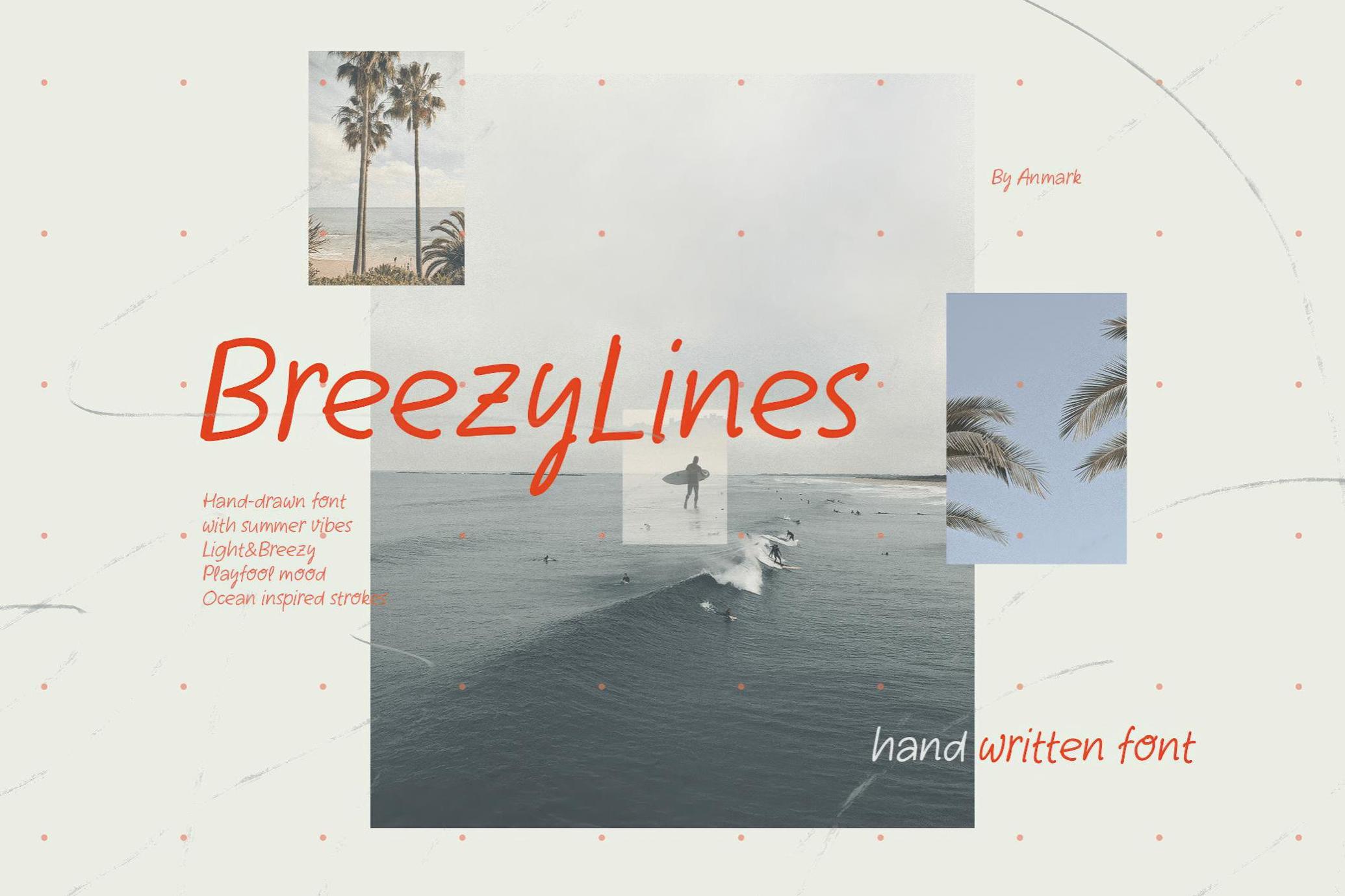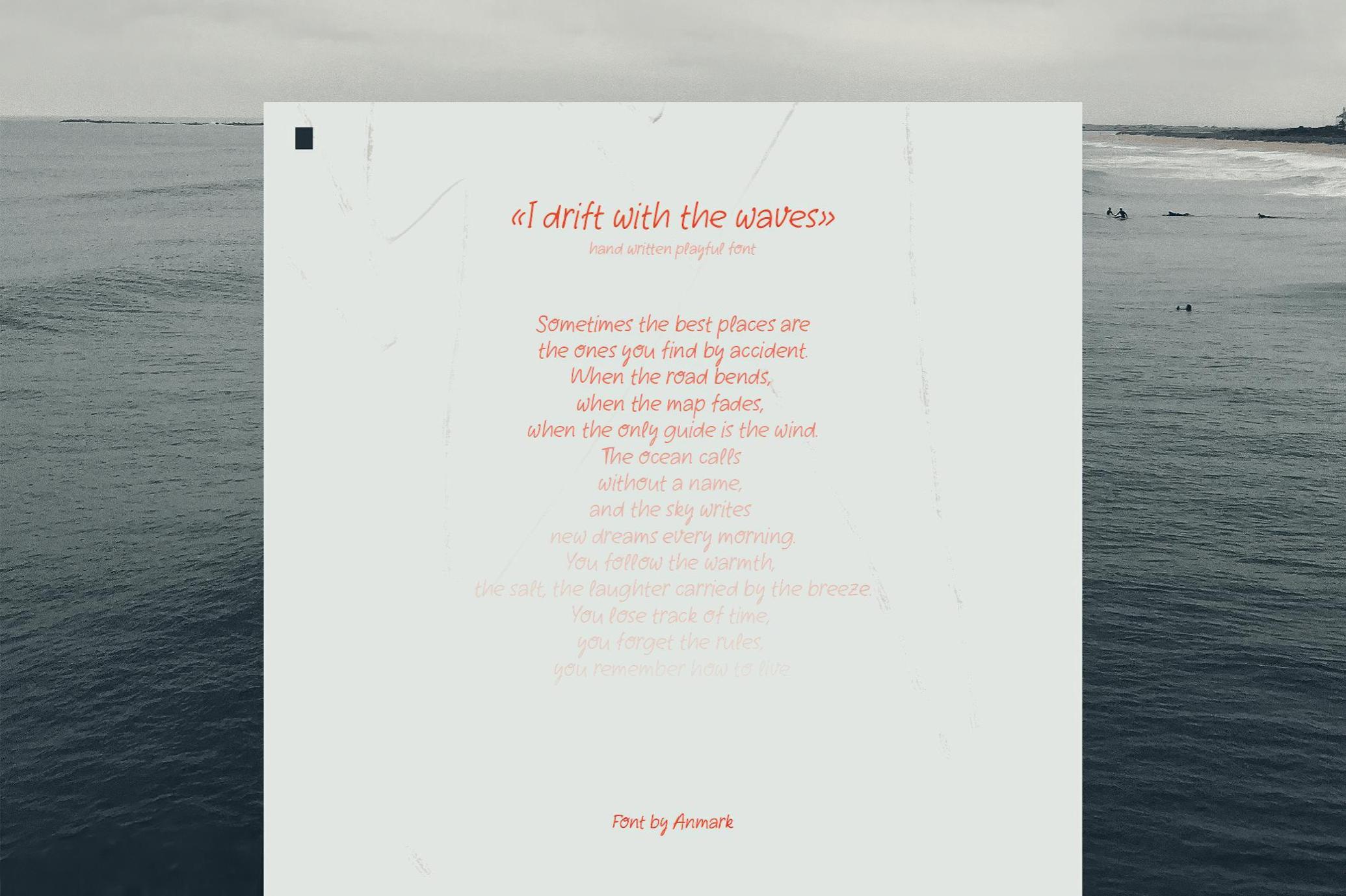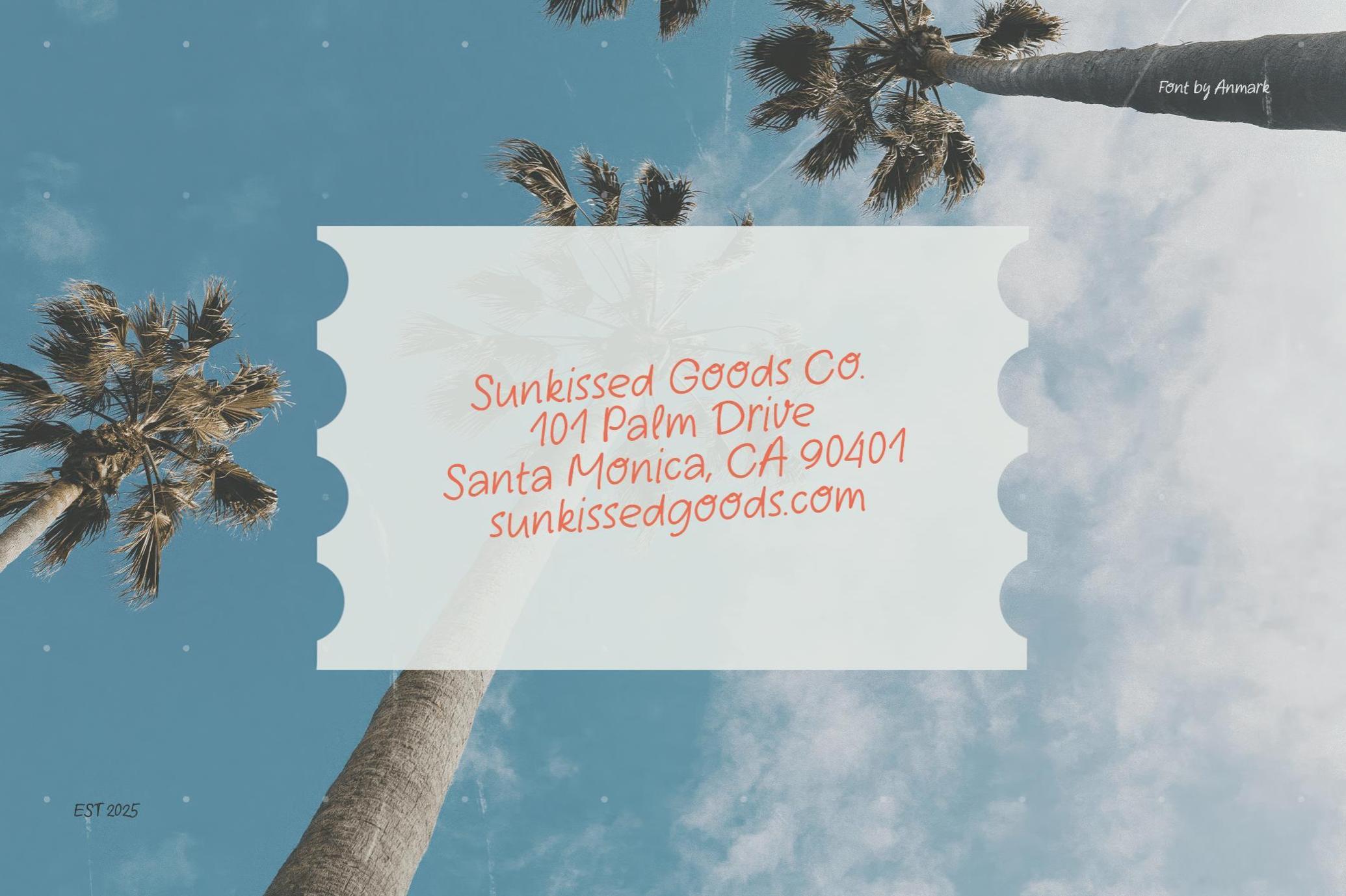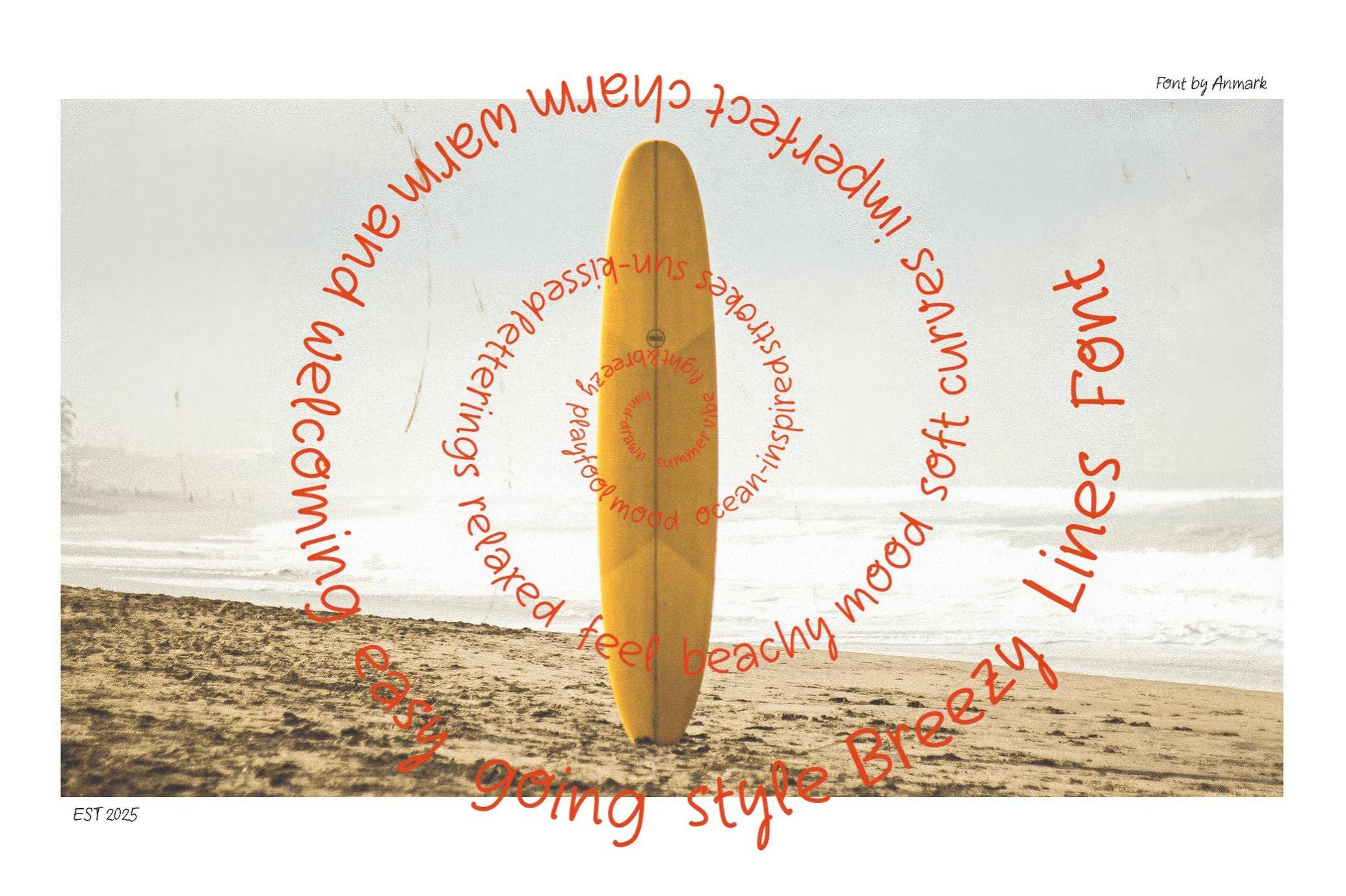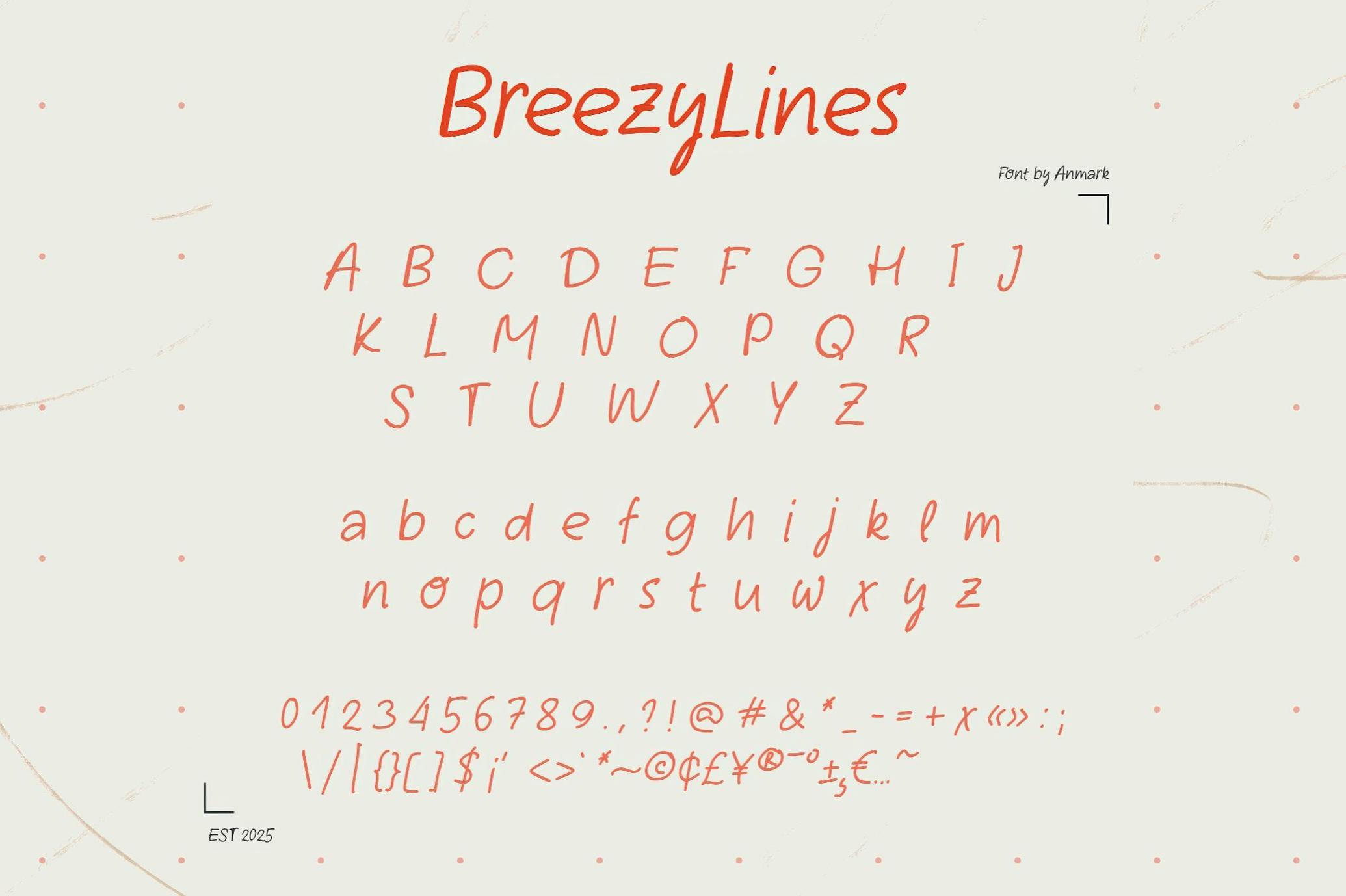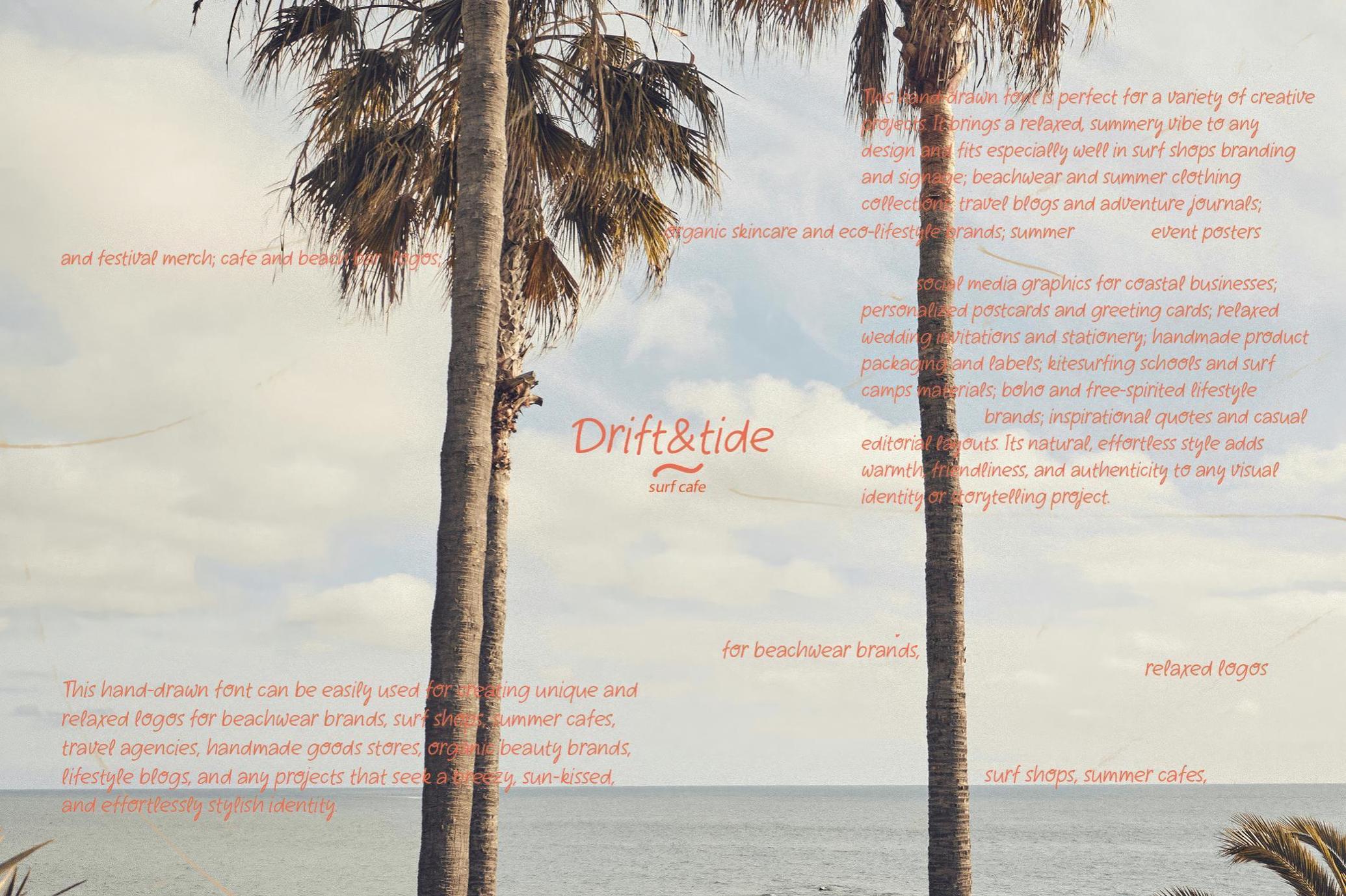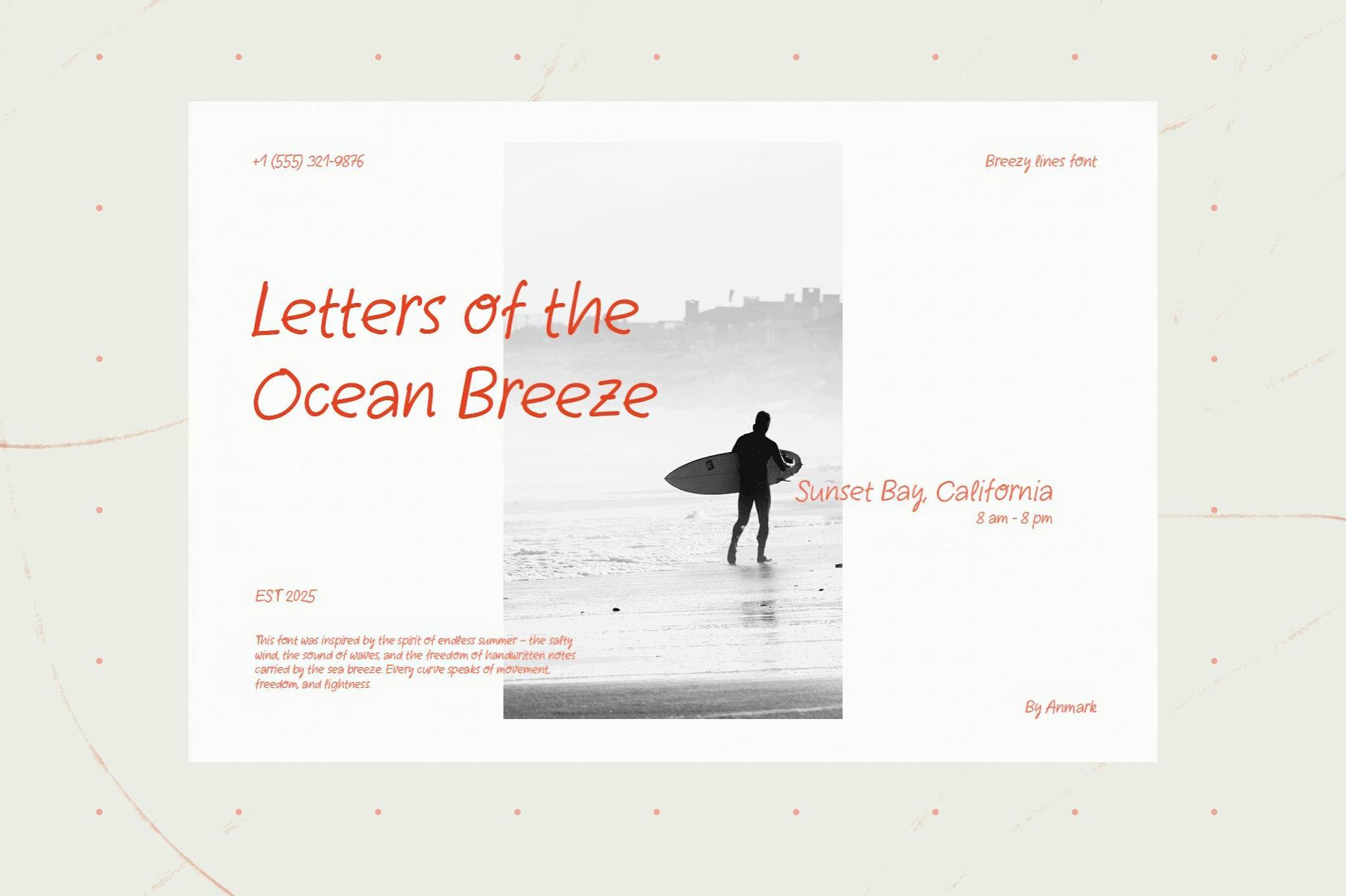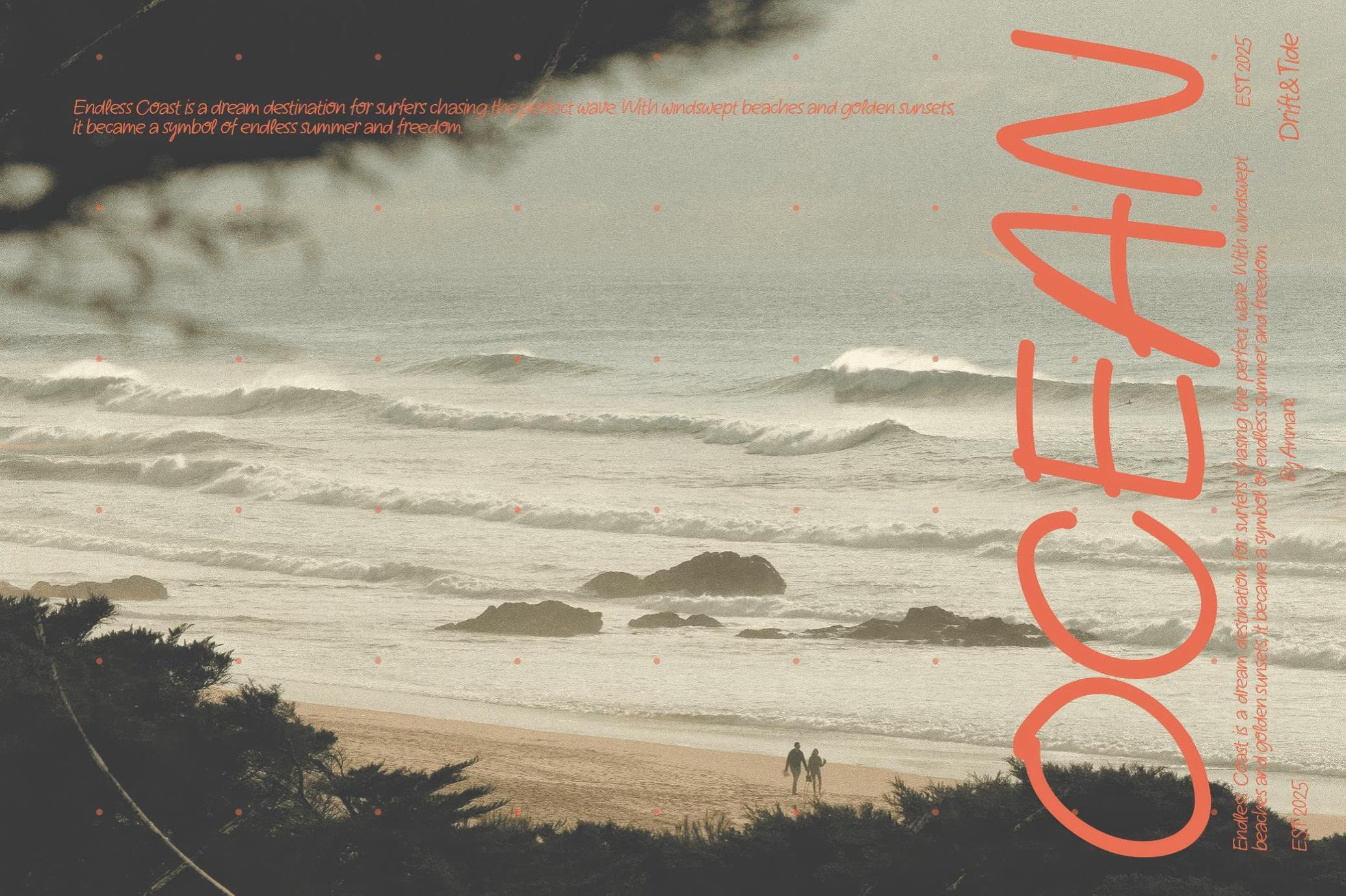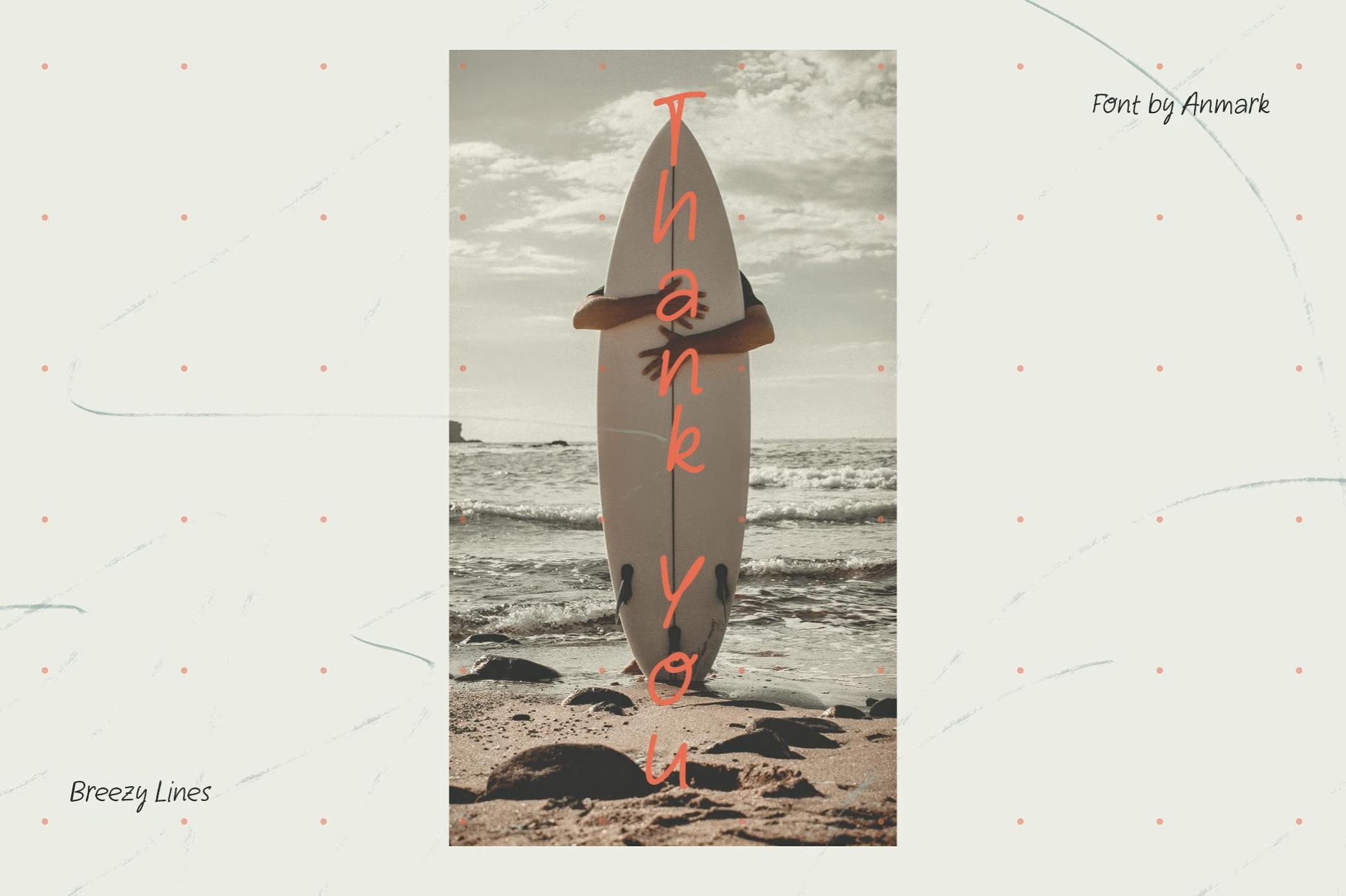
Breezy Lines — Handwritten Font
Breezy Lines gets the vibe of handwritten notes scribbled between swims — loose and full of sun. Its easygoing rhythm and irregular curves bring a playful softness that feels personal without trying too hard. The type is ideal for summer campaign posters, laid-back branding, lifestyle packaging, travel content, music festival assets, café menus, and handmade stationery.